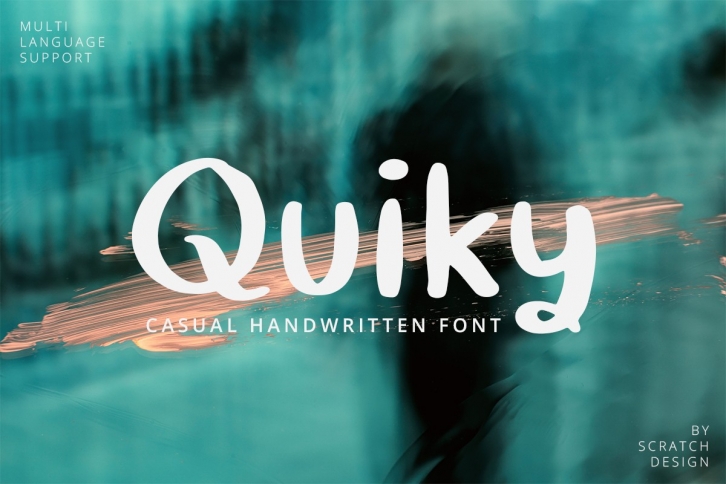
Quiky is a trendy and unique font with an authentic style. It was designed by Scratch Store and it's a great choice for creative people who need such a font. It was released on June 27, 2019 and the file size is 16.55 MB. Quiky will add an organic vibe to any design idea!